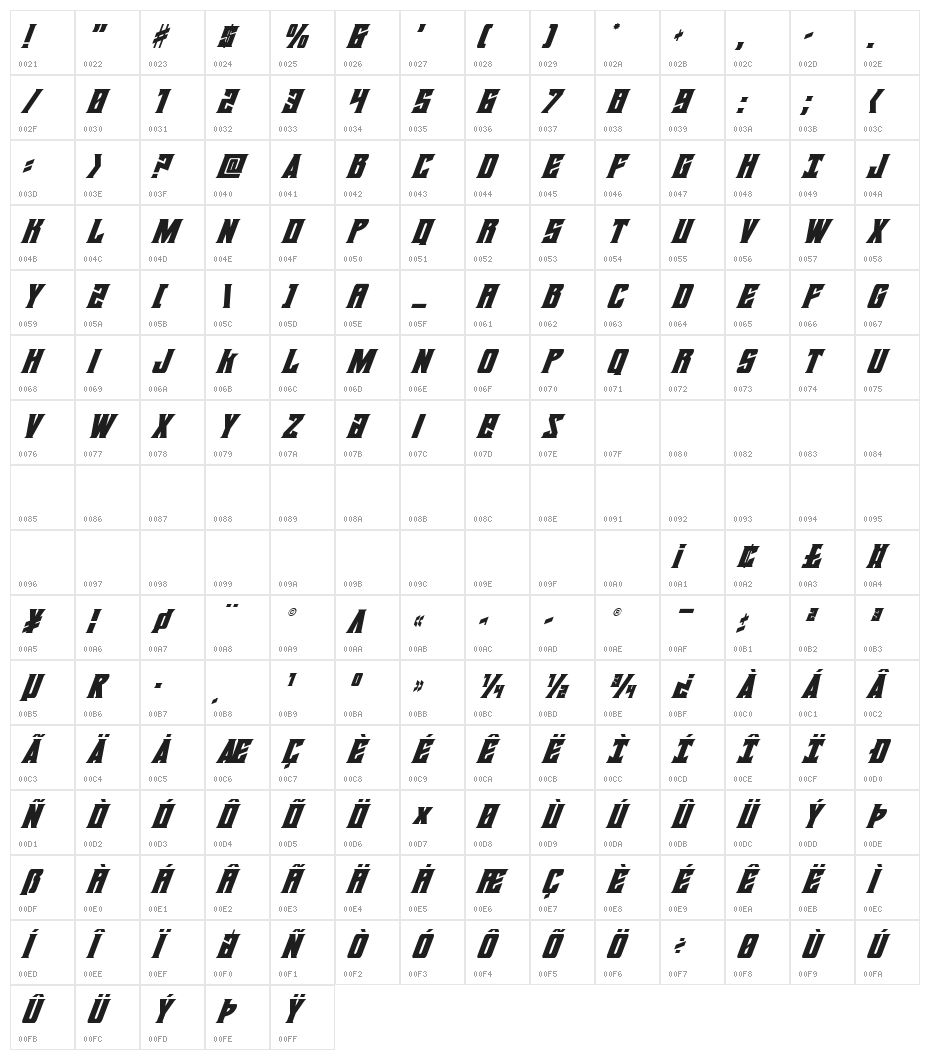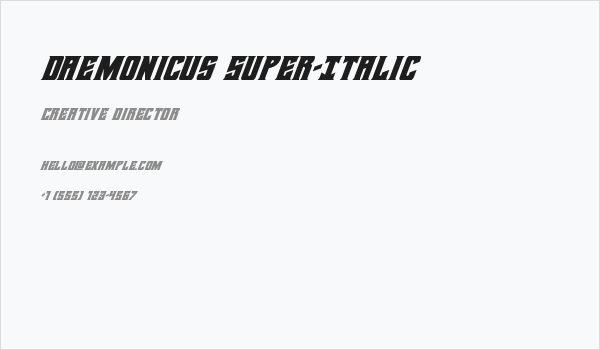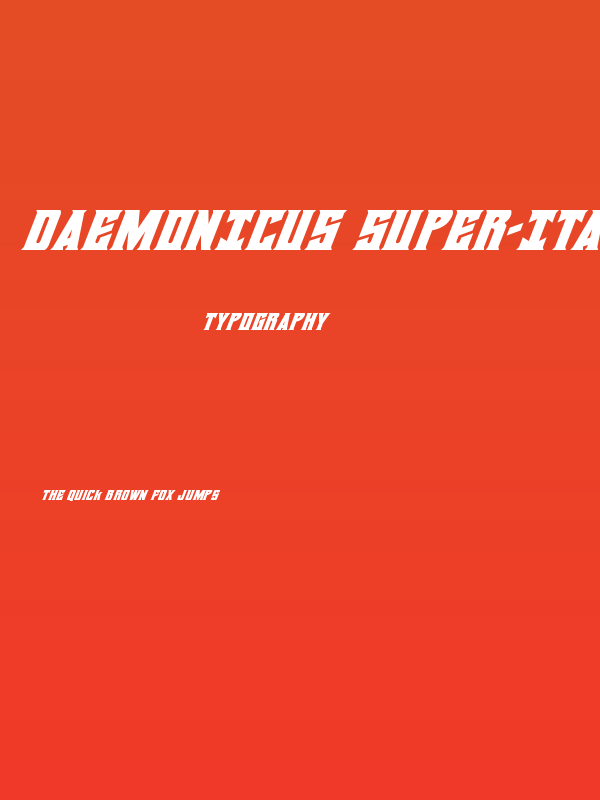
Daemonicus Super-Italic Font
Daemonicus Super-Italic Description
This font exhibits a bold, dynamic style with sharp, angular edges and a pronounced italic slant. The characters are heavily stylized, giving a sense of movement and energy. The uppercase and lowercase letters maintain a consistent design, with exaggerated serifs and a strong diagonal emphasis. The numbers and special characters follow the same bold and angular aesthetic, ensuring uniformity across all glyphs. This font's aggressive and modern appearance makes it suitable for attention-grabbing designs.
| Proposed Projects | Ideal for sports branding, action movie posters, video game titles, and any project requiring a bold, energetic typeface. |